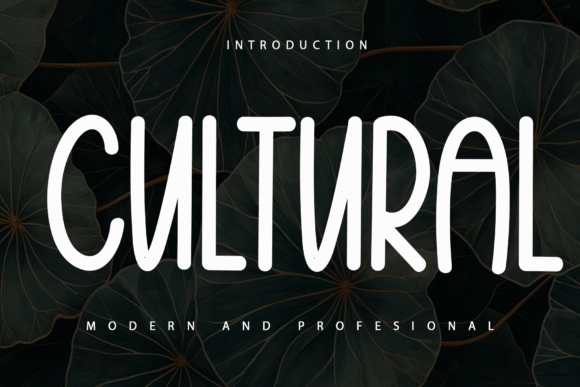
Unleashing the Power of Cultural Font
Do you ever find yourself sitting at your desk, staring blankly at a blank page, searching for the perfect font to bring your design to life? It’s a moment we’ve all been there, and it’s where the magic happens. In these moments, the right font can be the difference between a good design and a great one.
Enter the Cultural Font, a stylish handwritten font that exudes a contemporary atmosphere and impeccable form. Inspired by the timeless classic calligraphy, this font was designed to enhance the beauty of your projects, making it a valuable addition to any designer’s toolkit. With its balanced and varied style, the Cultural Font is the perfect choice for designers looking to add a touch of sophistication to their work.
Cultural Font Key Features
- Font Family: The Cultural Font comes in multiple font families, including serif, sans-serif, and script styles, each with its unique characteristics and nuances.
- Size: The font family includes a wide range of sizes, from 8-point to 72-point, catering to various design needs and applications.
- Resolution: Designed to work seamlessly at resolutions up to 300 DPI, ensuring crisp and clear typography in print and digital media.
- Language Support: The Cultural Font supports over 100 languages, including Latin, Cyrillic, Greek, and Devanagari scripts, making it an ideal choice for global branding and design projects.
- Unique Characteristics: The font’s unique blend of traditional and modern elements, combined with its high x-height and well-spaced letterforms, makes it highly legible and visually appealing.
- Scalability: The Cultural Font is optimized for use in various contexts, including body text, headings, and display typography, ensuring it remains readable and effective across different sizes and applications.
Cultural Font Review
I recently had the opportunity to work with the Cultural Font, and I must say, it’s been an interesting experience. There are definitely some things that shine about this font.
- Unique Character Set: The Cultural Font offers a wide range of unique characters and symbols that are not often found in other fonts. This makes it perfect for designers who want to add a touch of cultural flair to their projects.
- Highly Customizable: This font can be customized to fit any design style, from modern to traditional. The various font styles and weights available make it an excellent choice for a wide range of projects.
- Limited Legibility: While the Cultural Font is aesthetically pleasing, it can be challenging to read, especially at smaller font sizes. This may be a concern for designers who need to use the font in large blocks of text.
- Compatibility Issues: I encountered some compatibility issues with certain design software, which may be a concern for designers who work with a variety of programs.
Overall, the Cultural Font is a solid choice for designers who want to add a unique touch to their projects. While it has its limitations, it’s well worth considering for the right project. With a little creativity and patience, you can overcome its challenges and create some truly stunning designs.
Tips for Getting the Most Out of Cultural Font
Use Cultural Font to add a touch of cultural flair to your designs. Experiment with different font sizes and colors to create a visually appealing effect. Consider using Cultural Font in combination with other design elements, such as images and graphics, to create a unique and engaging design.
Common Use Cases for Cultural Font
Cultural Font is perfect for designers who want to add a cultural touch to their designs. Some common use cases include:
- Cultural events and celebrations
- International branding and marketing
- Language and cultural education